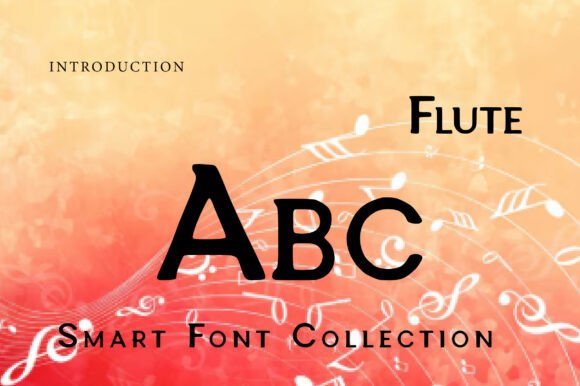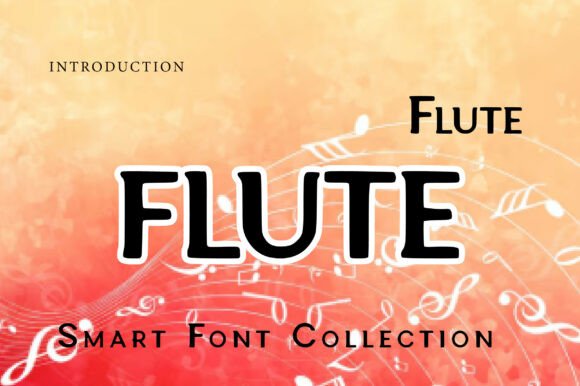
Find Your Creative Rhythm with Flute Font
Are you looking for a typeface that can add a touch of music to your designs? Look no further than the Flute font, a playful and artistic display typeface that is inspired by the movement and soul of music. With its unique, rhythmic letterforms that feel as if they are dancing across the page, Flute is the perfect choice for anyone who wants to bring a melodic feel to their designs.
A Standout Choice for Music-Inspired Designs
Flute font is specifically designed to capture the essence of music, making it a standout choice for concert posters, music education materials, and creative festival branding. The bold presence of the Flute font ensures that your titles are seen, while its slightly whimsical terminals add a touch of personality and flair. Whether you’re designing a poster for a music festival or creating materials for a music education program, Flute font is the perfect choice.
Bringing a Melodic Feel to Your Designs
Flute font is not just limited to music-inspired designs. Its unique and playful style makes it a great choice for a variety of design projects, including logos, children’s books, and upbeat social media graphics. The font’s bold simplicity and handmade charm make it perfect for adding a touch of personality to your designs. Use Flute font to bring a melodic feel to your designs and make them stand out from the crowd.
Flute font is a versatile typeface that can be used for a variety of design projects, including:
- Logos & Friendly Branding: Add a touch of music to your logo and branding with Flute font.
- Kids Designs & School Projects: Flute font is perfect for designing materials for kids, including school projects and educational materials.
- Posters, Flyers & Headlines: Use Flute font to create eye-catching posters, flyers, and headlines that grab attention.
- Packaging & Labels: Add a touch of personality to your packaging and labels with Flute font.
- Social Media & Thumbnails: Use Flute font to create eye-catching social media graphics and thumbnails.
- Crafts, Stickers & DIY: Flute font is perfect for crafty designs, including stickers and DIY projects.
- Quotes & Modern Minimal Layouts: Use Flute font to add a touch of music to your quotes and modern minimal layouts.
Pairing Flute Font with Other Design Elements
Flute font pairs beautifully with vibrant, warm color palettes and abstract shapes to create a visual symphony that captures the viewer’s attention instantly. When using Flute font, consider pairing it with:
- Vibrant colors: Bright and bold colors that reflect the energy and movement of music.
- Abstract shapes: Geometric shapes and abstract forms that add a touch of creativity and playfulness to your designs.
Tips for Using Flute Font
Here are a few tips for using Flute font in your designs:
- Use it boldly: Flute font is designed to make a statement, so don’t be afraid to use it boldly in your designs.
- Experiment with colors: Try pairing Flute font with different color palettes to find the perfect combination for your design.
- Add a personal touch: Flute font has a handmade charm that makes it perfect for adding a personal touch to your designs.
Flute font is a playful and artistic display typeface that is perfect for anyone who wants to bring a melodic feel to their designs. With its unique, rhythmic letterforms and bold presence, Flute font is a standout choice for a variety of design projects. Whether you’re designing a concert poster, a children’s book, or a social media graphic, Flute font is the perfect choice. So why wait? Find your creative rhythm with Flute font and bring a touch of music to your designs.